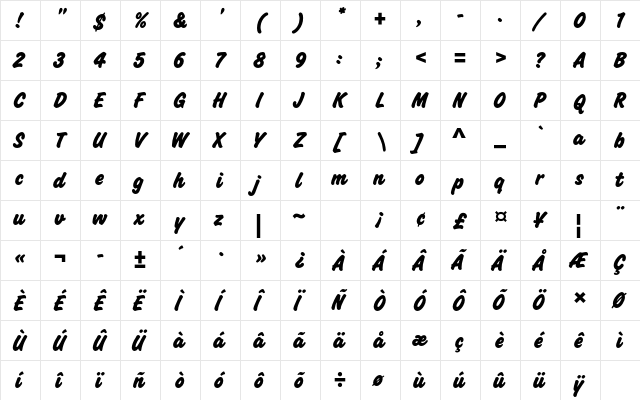
Challenge Extra Bold Std Regular
| Designer | Martin Wait |
Design Context for Challenge Extra Bold Std Typeface
Challenge Extra Bold Std is a composed and adaptable typeface that performs quietly and consistently across a wide range of design contexts. The heavy weight commands attention and anchors typographic hierarchies.